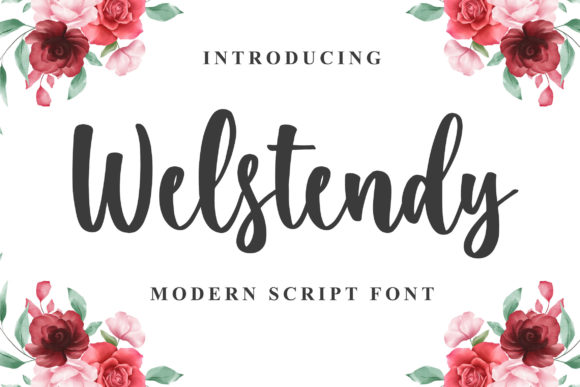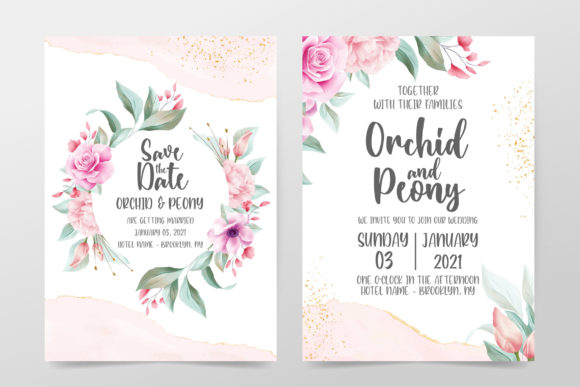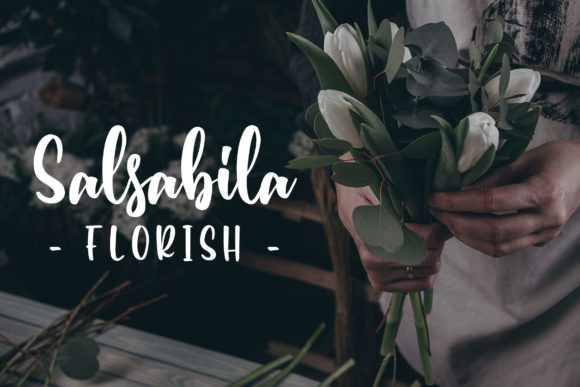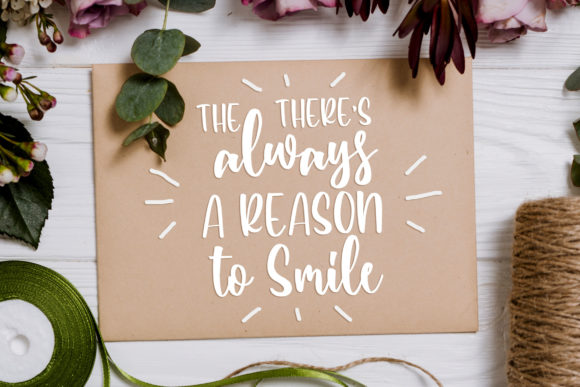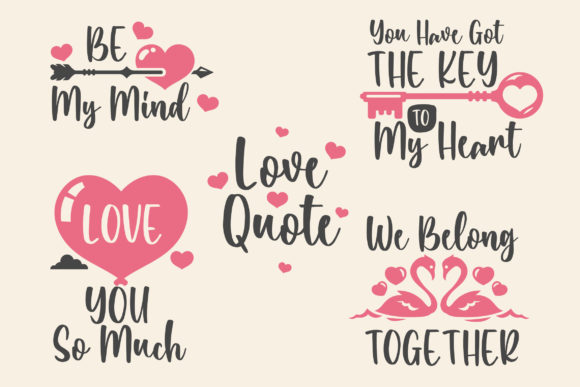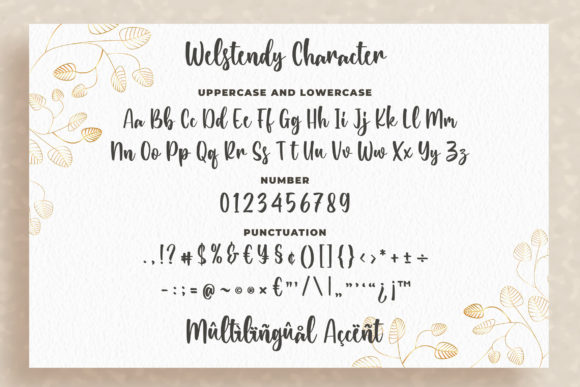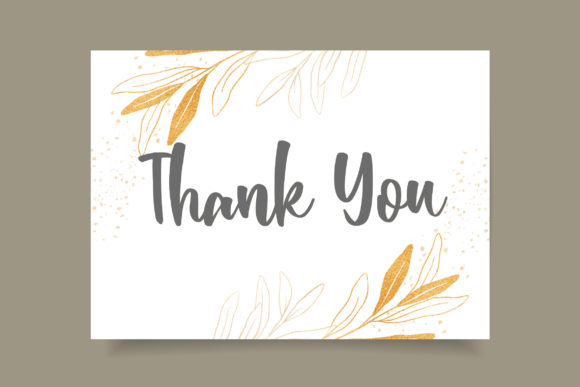
Welstendy Font
About Welstendy Font
Welstendy feels equally charming and elegant. This stunning handwritten font is a stylish homage to classic calligraphy. This font is the perfect fit for all of your logos, branding, social media, and crafty DIY projects.